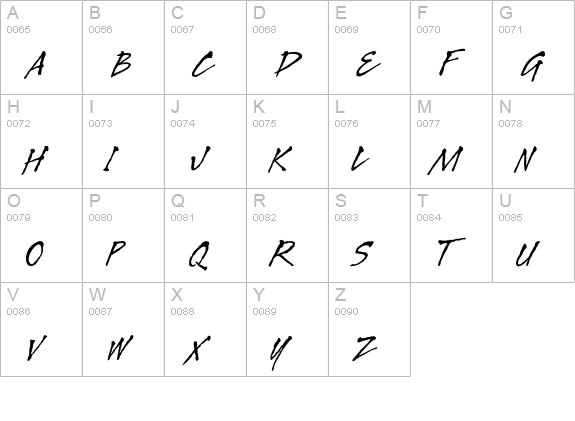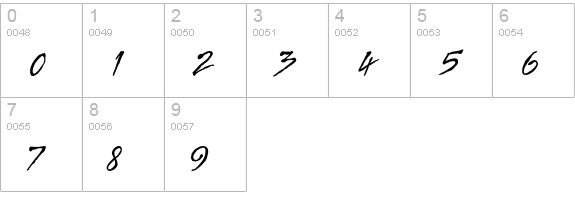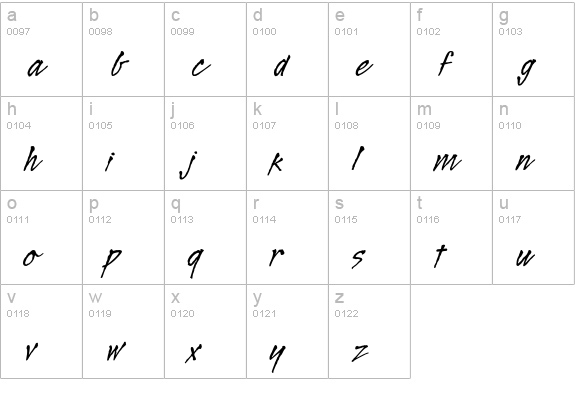
Legault is a stunning font that combines elegance with modernity. Its sleek and sophisticated design makes it perfect for a wide range of creative projects. Whether you're designing logos, branding materials, or even just adding a touch of style to your personal documents, Legault is sure to impress. One of the best things about Legault is that it is completely free. That's right, you can download this amazing font without having to spend a dime. It's freely available to download at FontsMarket.com, a trusted source for high-quality fonts. With Legault, you'll have access to a wide variety of characters, including uppercase and lowercase letters, numbers, punctuation marks, and special symbols. This versatility allows you to create unique and eye-catching designs that truly stand out. Not only does Legault offer a wide range of characters, but it also boasts excellent legibility. Its clean lines and balanced letterforms make it easy to read, whether it's in large headlines or small body text. The designers of Legault have paid careful attention to every detail, ensuring that each character is meticulously crafted. This level of precision is evident in the smooth curves, sharp angles, and consistent spacing, resulting in a font that is visually pleasing and professionally executed. Legault is also incredibly versatile, making it suitable for a variety of design styles. Whether you prefer a minimalist approach or a more decorative look, Legault can adapt to your needs. It seamlessly blends with other fonts and can be used in both print and digital media. So, if you're looking for a high-quality, elegant font that won't break the bank, look no further than Legault. Download it for free at FontsMarket.com and elevate your designs to a whole new level.